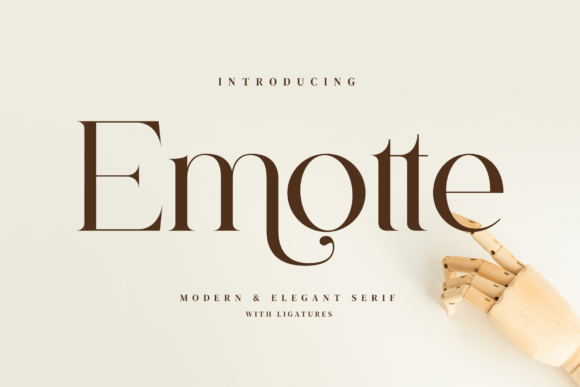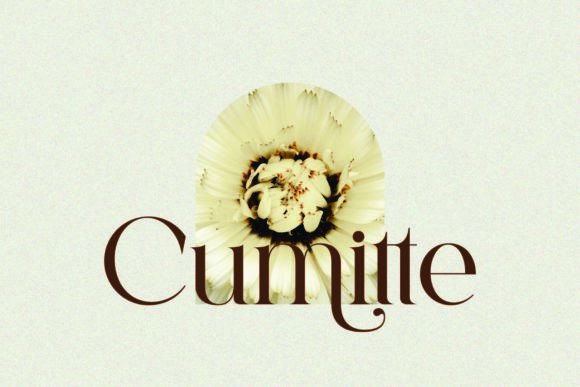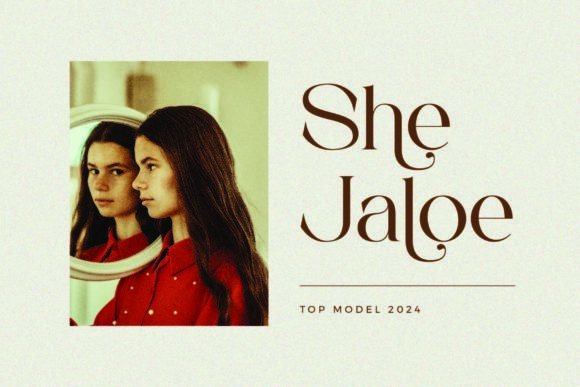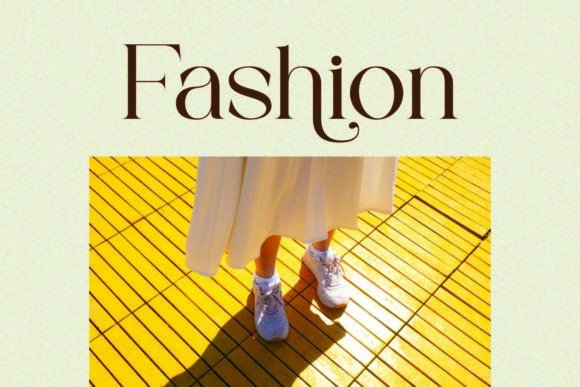
Emotte Font: Elegant Serif for Logo Design & Modern Branding
About the Emotte Font
The wait is over! The incredible Emotte Font is now available for your design toolkit. Emotte is a stylish serif font, inspired by the famous minimalist logo perfect for the purposes of designing templates, brochures, videos, advertising branding, logos and more.
Emotte’s clean lines and minimalist structure make it ideal for headlines, logos, and short-form text within branding materials and advertising campaigns. Its stylish serif design lends a sophisticated yet approachable feel, perfect for projects requiring a touch of elegance without being overly formal. Avoid using Emotte for large blocks of body text or UI elements; its refined aesthetic is better suited to impactful, concise messaging.
Pairing Emotte with a clean sans-serif like Open Sans for body copy creates a balanced and highly readable combination. For a more playful feel, consider a handwritten script font, but ensure it maintains a similar level of sophistication to avoid clashing. Geometric sans-serif fonts also work well, providing a modern contrast that complements Emotte’s inherent elegance.
Emotte projects an air of modern sophistication and understated confidence. Brands aiming for a refined, professional image—in sectors such as fashion, luxury goods, or architecture—will find it particularly effective. Its versatility allows it to be equally at home on a minimalist website banner as it is on a premium product packaging design.
Emotte Font Usage Examples
Emotte Font Example